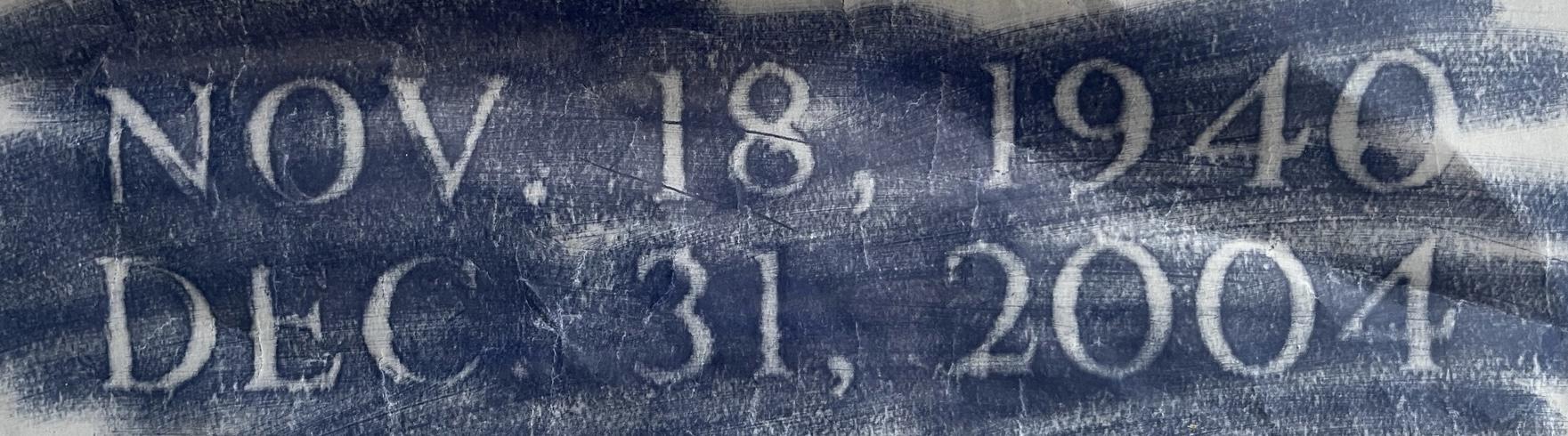
Font ID Home › Forums › Lettering and Font Identification › Font ID This topic has 1 reply, 2 voices, and was last updated 3 years ago by MLC. Viewing 2 posts - 1 through 2 (of 2 total) Author Posts June 14, 2023 at 1:13 pm #9172 wcmemorialsParticipant Any help would be appreciated! June 14, 2023 at 9:41 pm #9174 MLCKeymaster Hello, this is a monument industry-specific version of Times New Roman, that has been given entirely different numbers, along with a redesigned ‘J’. DesignMart carries a version of the font. If you would like help matching it feel free to use the MLC Inscription Matching Service. Author Posts Viewing 2 posts - 1 through 2 (of 2 total) You must be logged in to reply to this topic. Log In Username: Password: Keep me signed in Log In